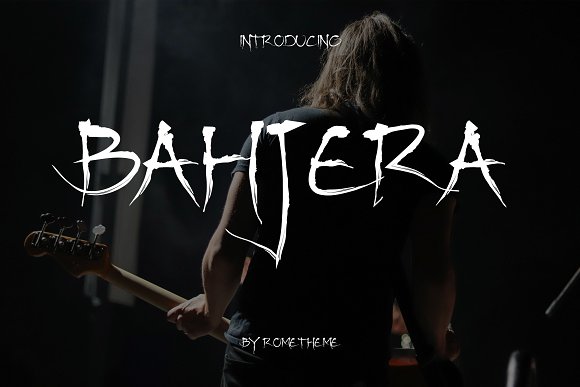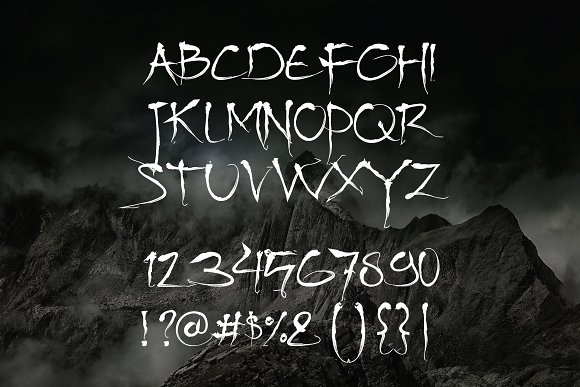
Bahjera Font
Bajhera is a brush and handdrawn font, this font looks urban, cool, readable, stylish, catchy and easy to use.
Bajhera Font is the best choice for your professional design projects, including : logo, poster design, t-shirt, headline, flyer, cd cover album, quotes, business card, branding, magazines, social media, advertisements, product designs, or something that need cool or urban looks.